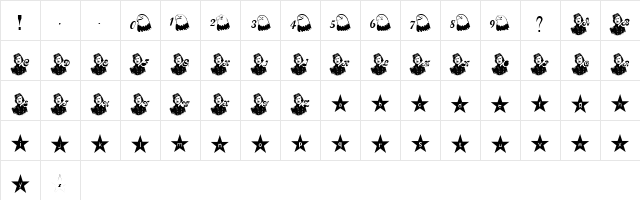
Colonel Ellsworth Regular
Design Context for Colonel Ellsworth Typeface
Colonel Ellsworth is a composed and adaptable typeface that performs quietly and consistently across a wide range of design contexts.